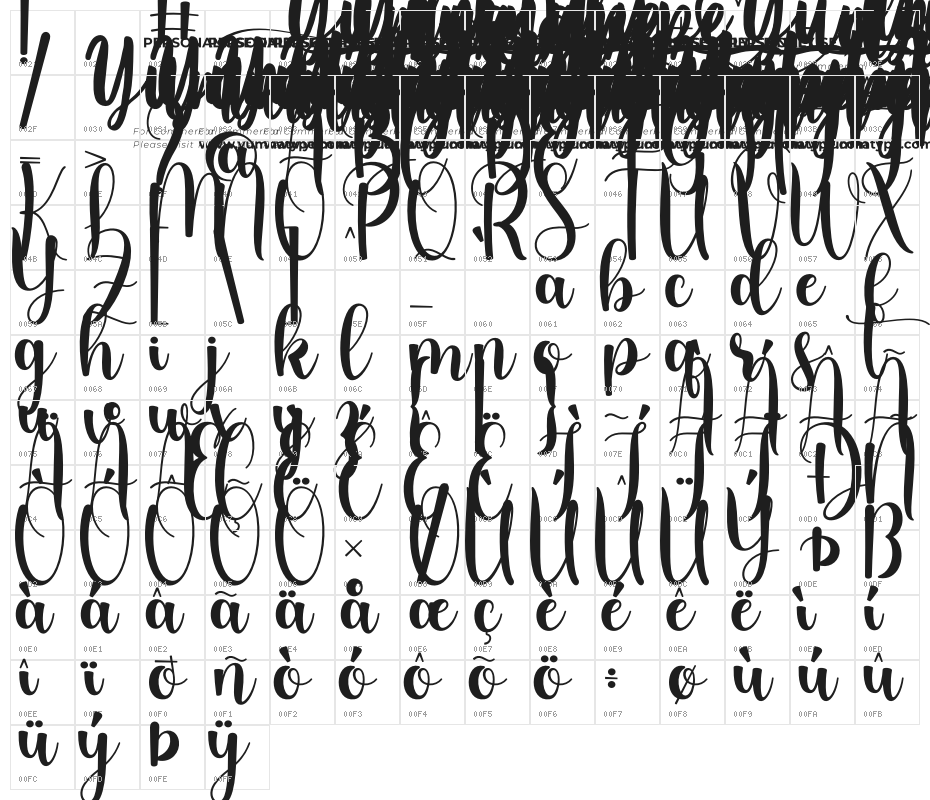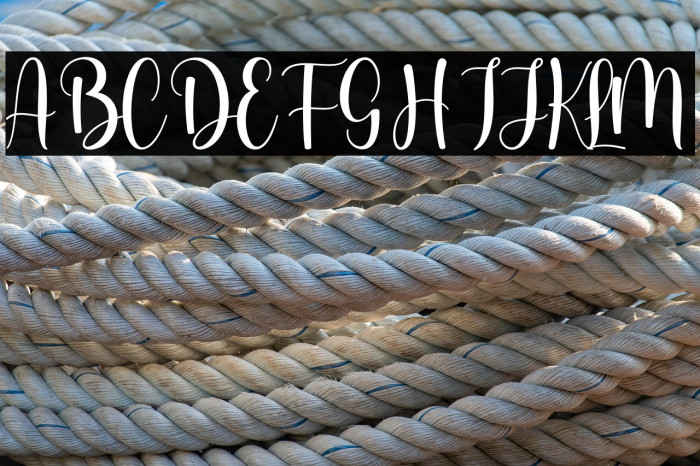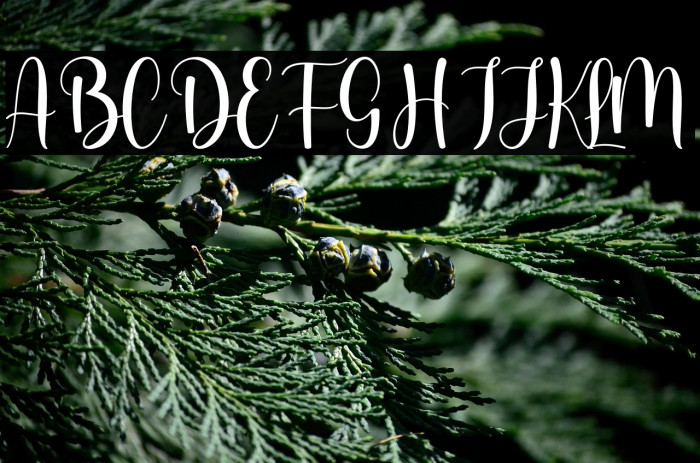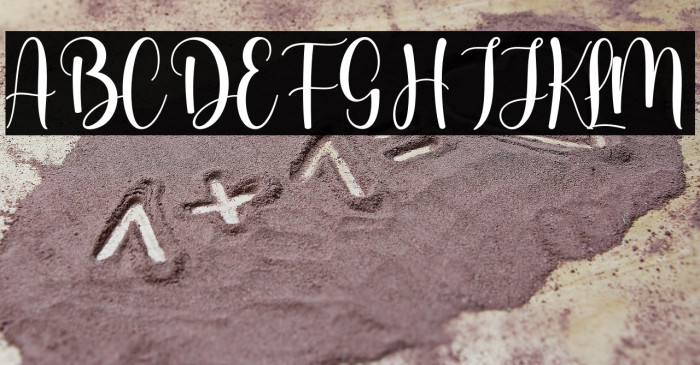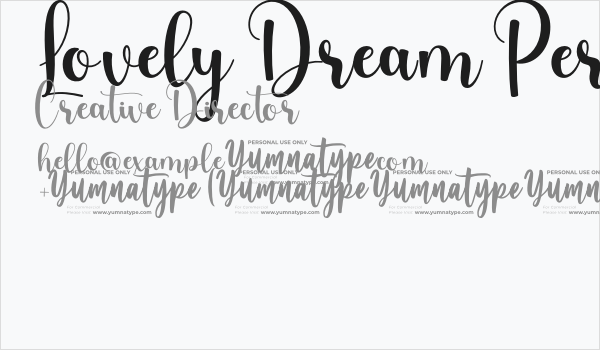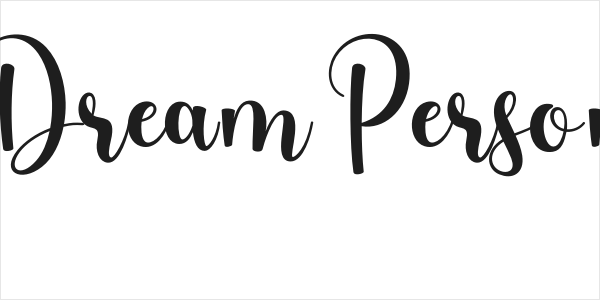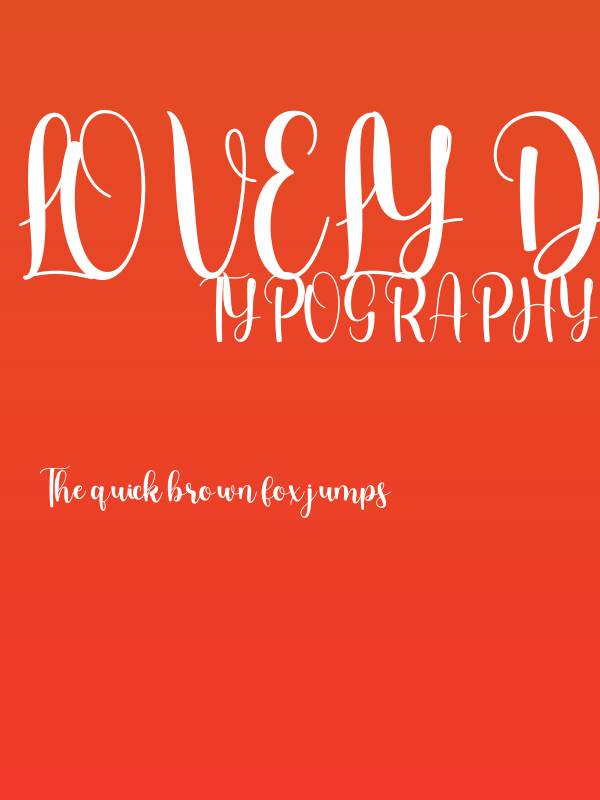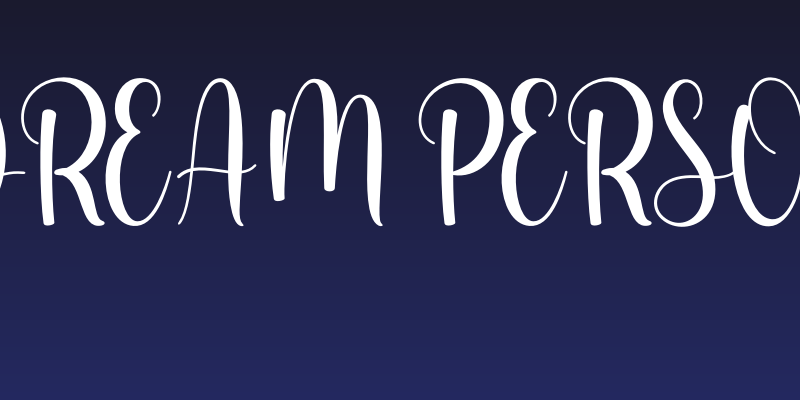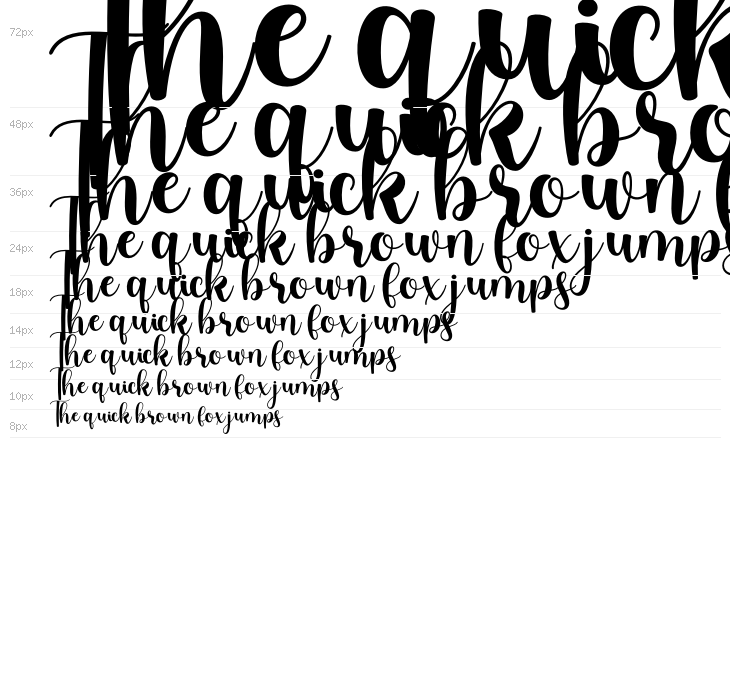
Lovely Dream Personal Use Font
Lovely Dream Personal Use Description
This font features a flowing, cursive style with elegant loops and swirls, giving it a whimsical and romantic feel. The uppercase letters are tall and slender, with graceful curves that add a touch of sophistication. The lowercase letters maintain a consistent style, with some characters extending below the baseline, enhancing the font's fluidity. The numbers and special characters are designed to match the overall aesthetic, making them suitable for decorative purposes. This font is perfect for projects that require a personal touch, such as invitations, greeting cards, or branding materials. Its unique style makes it stand out, while still being legible and versatile.